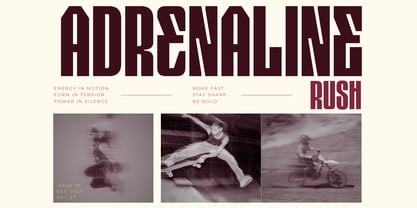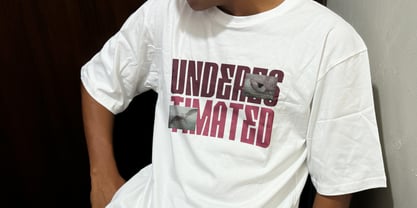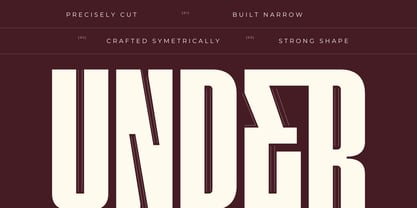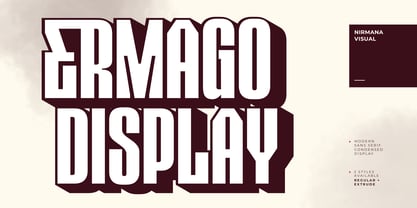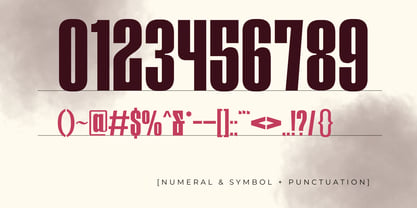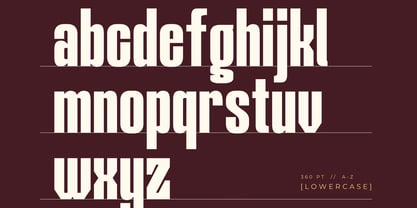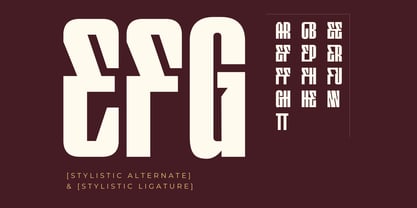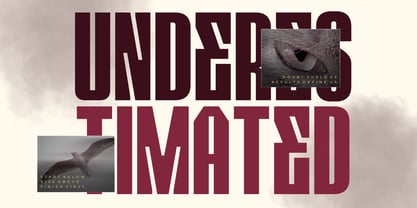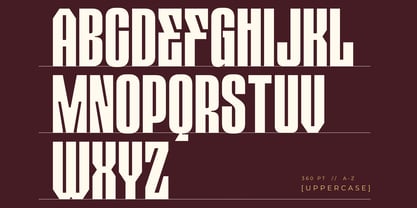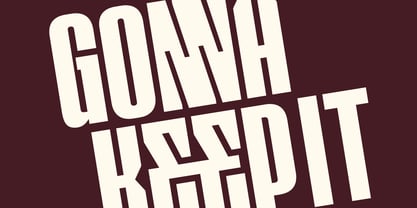
Ermago Display
by Nirmana Visual
The Ermago Display Font Family was designed by Sigit Dwipa and published by Nirmana Visual. Ermago Display contains 2 styles and family package options. More about this family
Ermago Display is a bold extrude font, dimensional typeface designed to make your visuals stand out. Featuring strong letterforms with striking 3D extrude effects, this font adds depth, power, and modern energy to any design. Perfect for branding, logos, posters, merchandise, and promotional campaigns, Ermago Display Extrude creates eye-catching impact and confident presence, turning simple text into dynamic statements that demand attention.